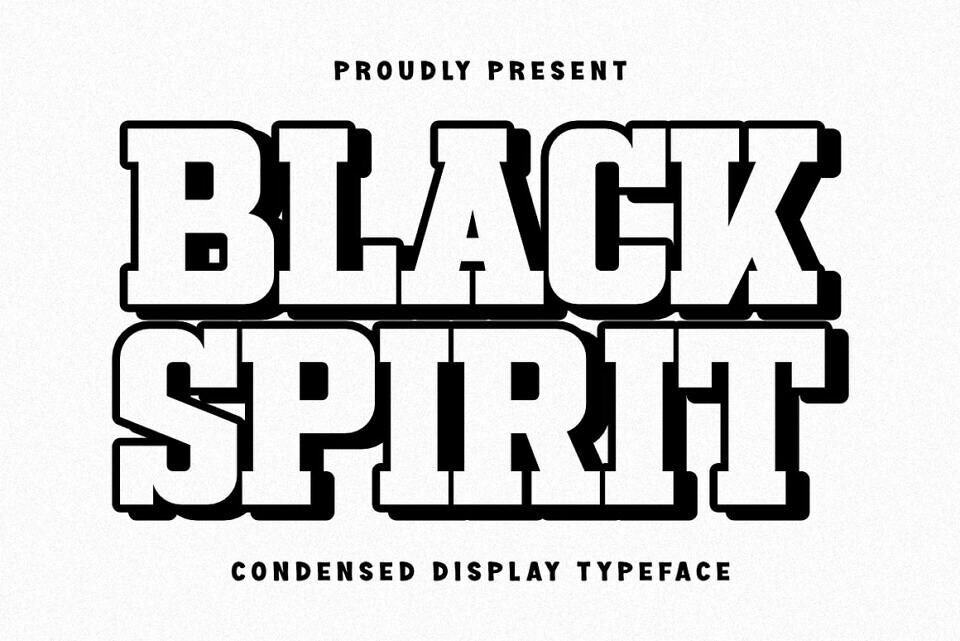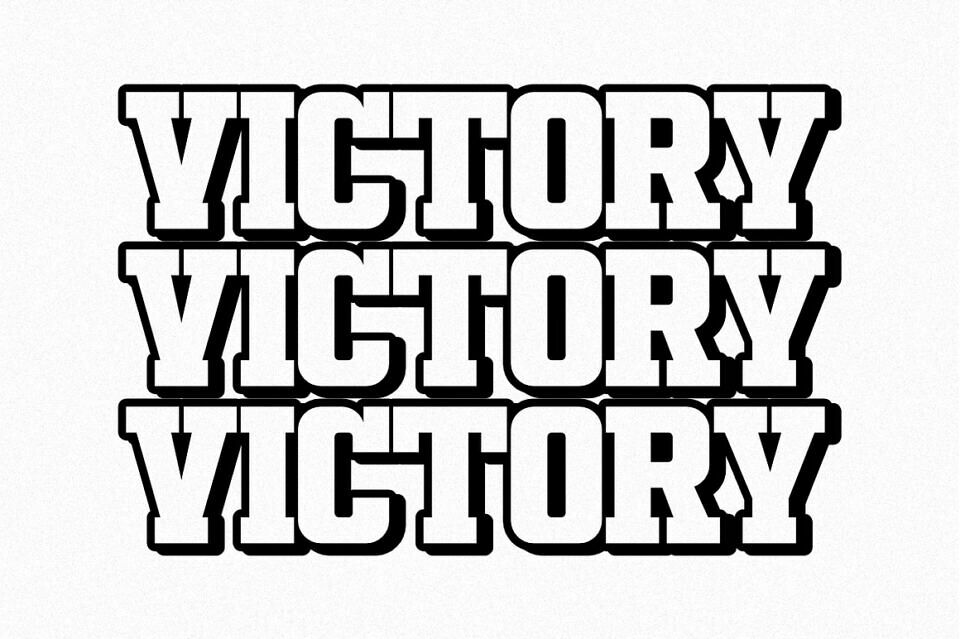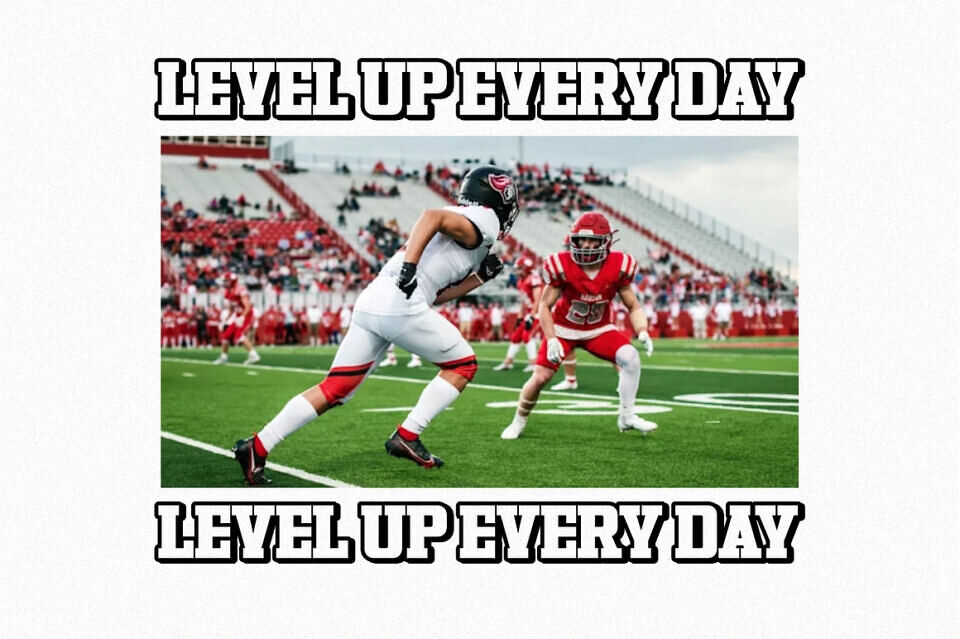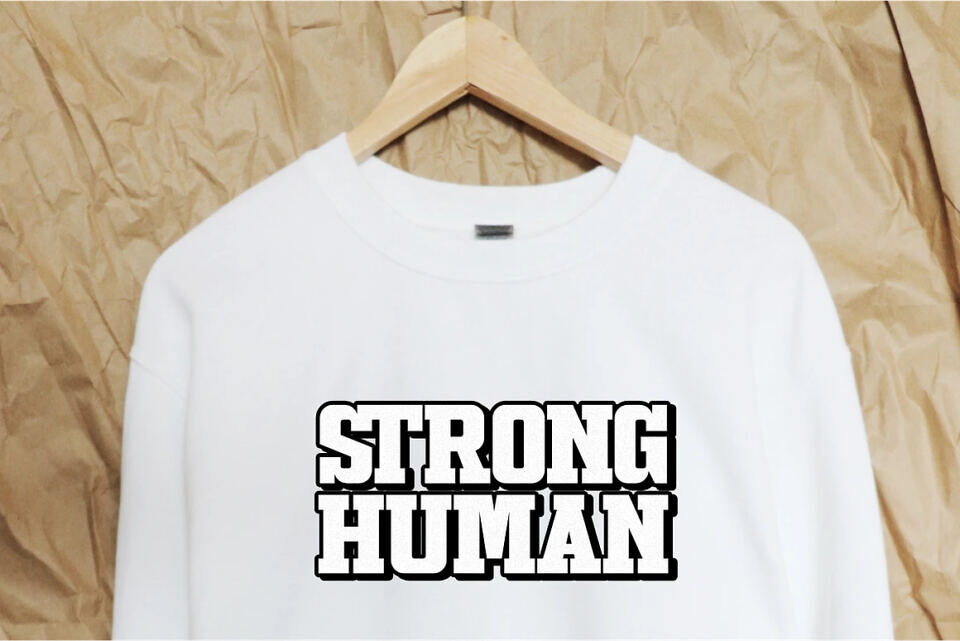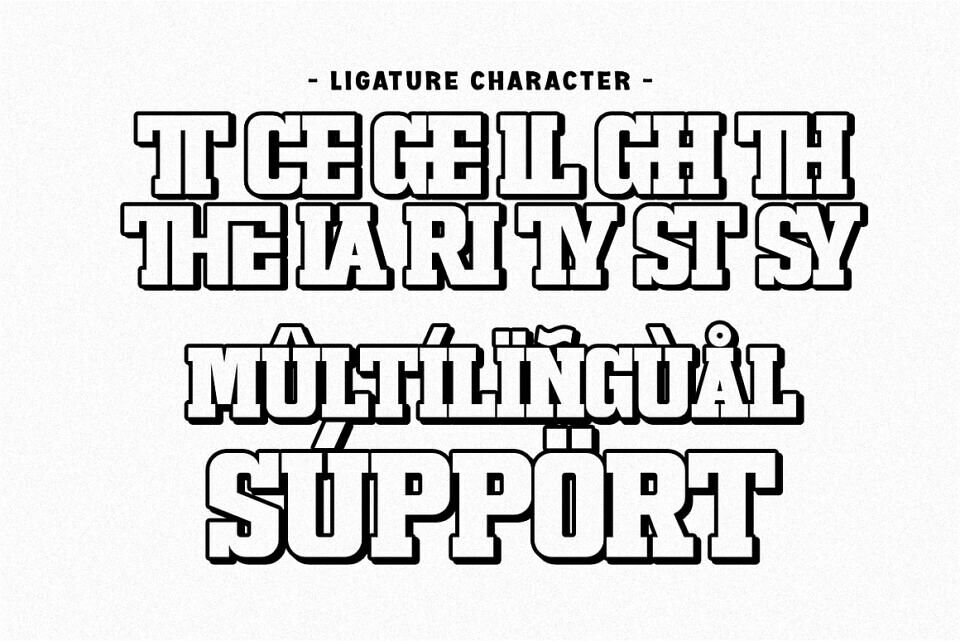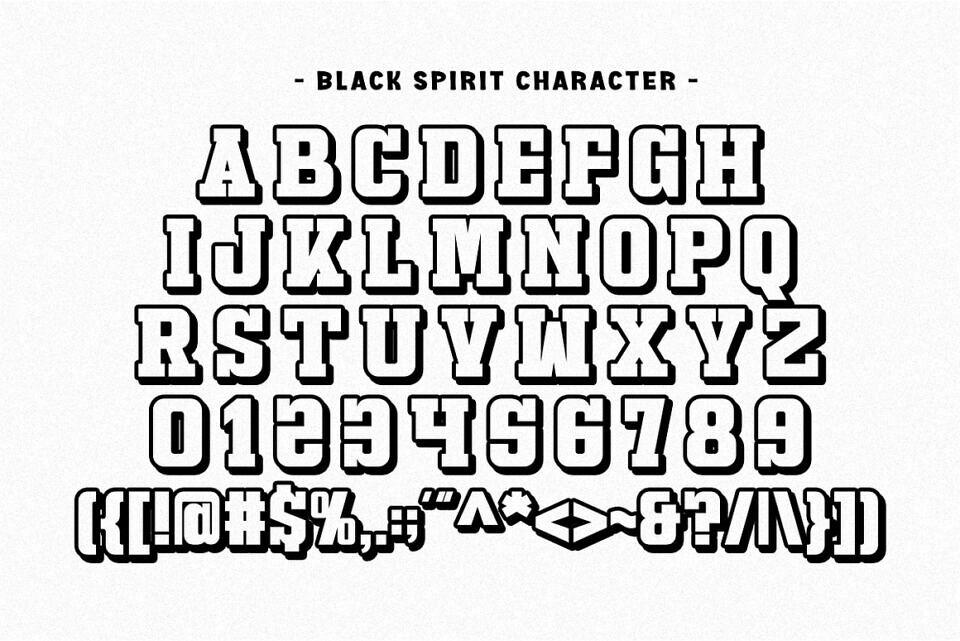
Black Spirit Font
Black Spirit is a truly massive and incredibly powerful Condensed Display Typeface. It features an ultra-thick, blocky structure characterized by clean lines and smoothly rounded corners, perfectly balancing a retro punch with a sleek modern appeal.
The font comes equipped with a distinctive, chunky shadow effect layer, making it absolutely ideal for high-impact, layered designs that need to aggressively stand out. This commanding all-caps typeface is the ultimate choice for sports and gym branding, nostalgic retro posters, logos, merchandise, and commanding headlines in both print and digital media.